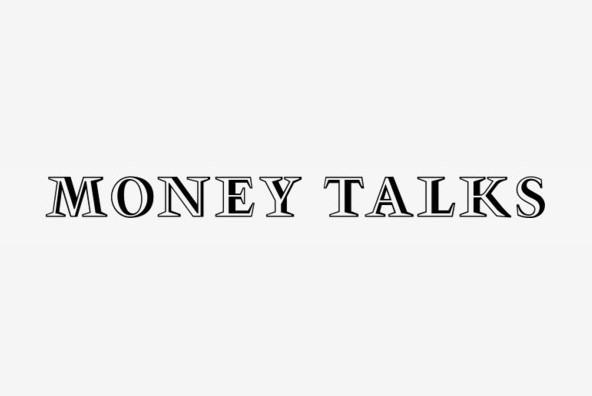
Gmuender Gravur
This handtooled gravure font following in style Trump’s Gravur is an ideal font for diplomas, engravings, headlines, plates and posters.